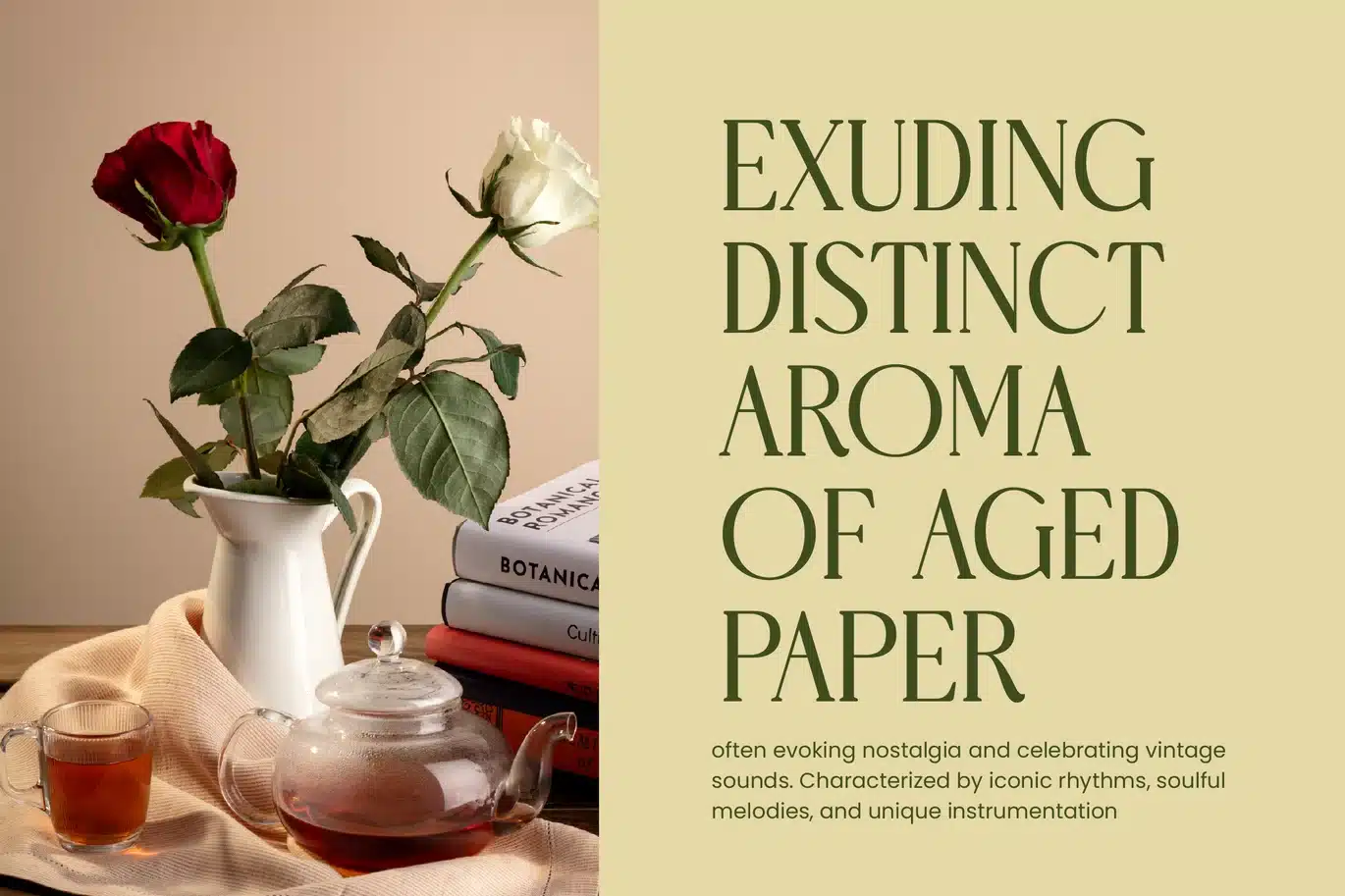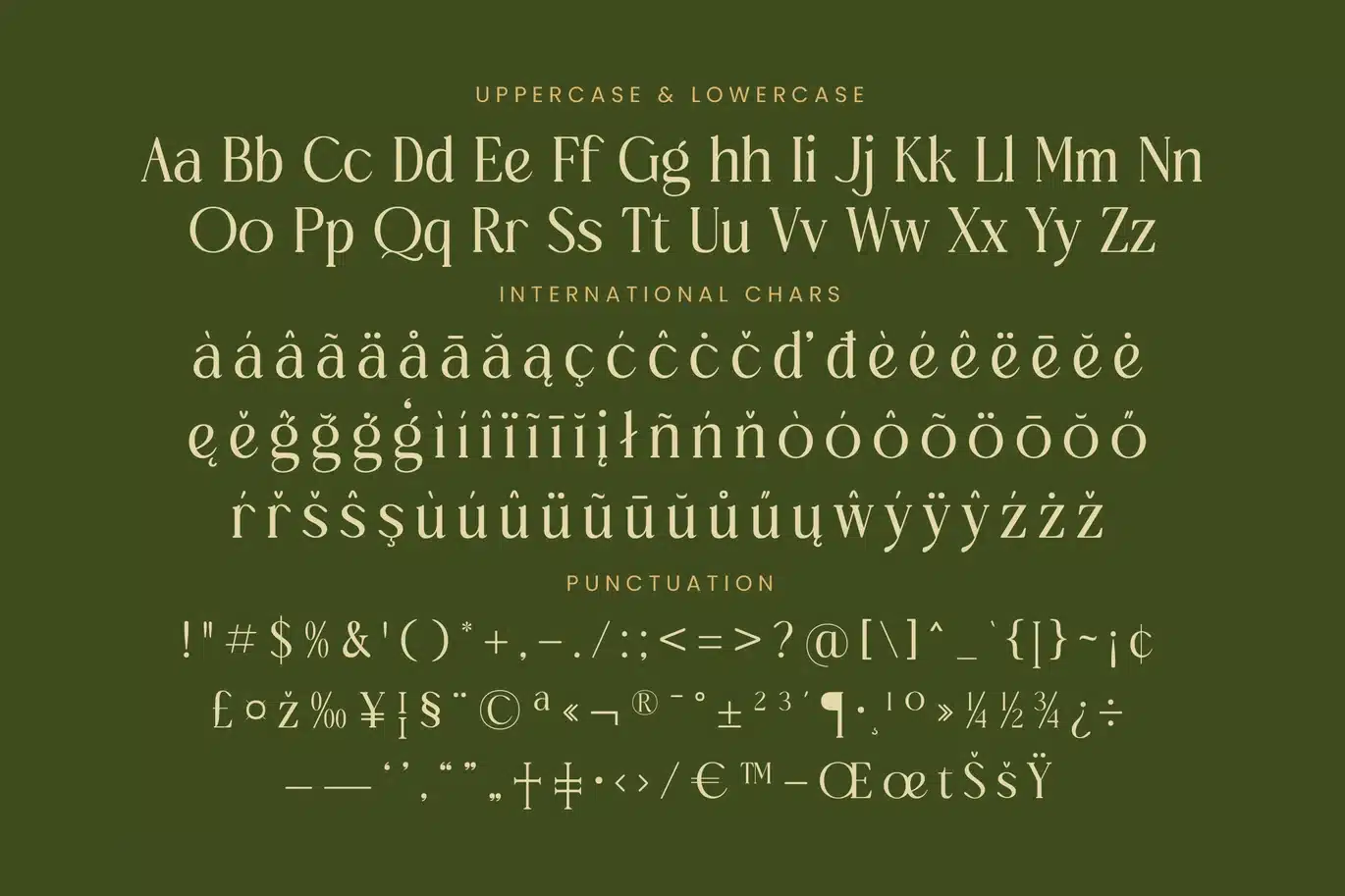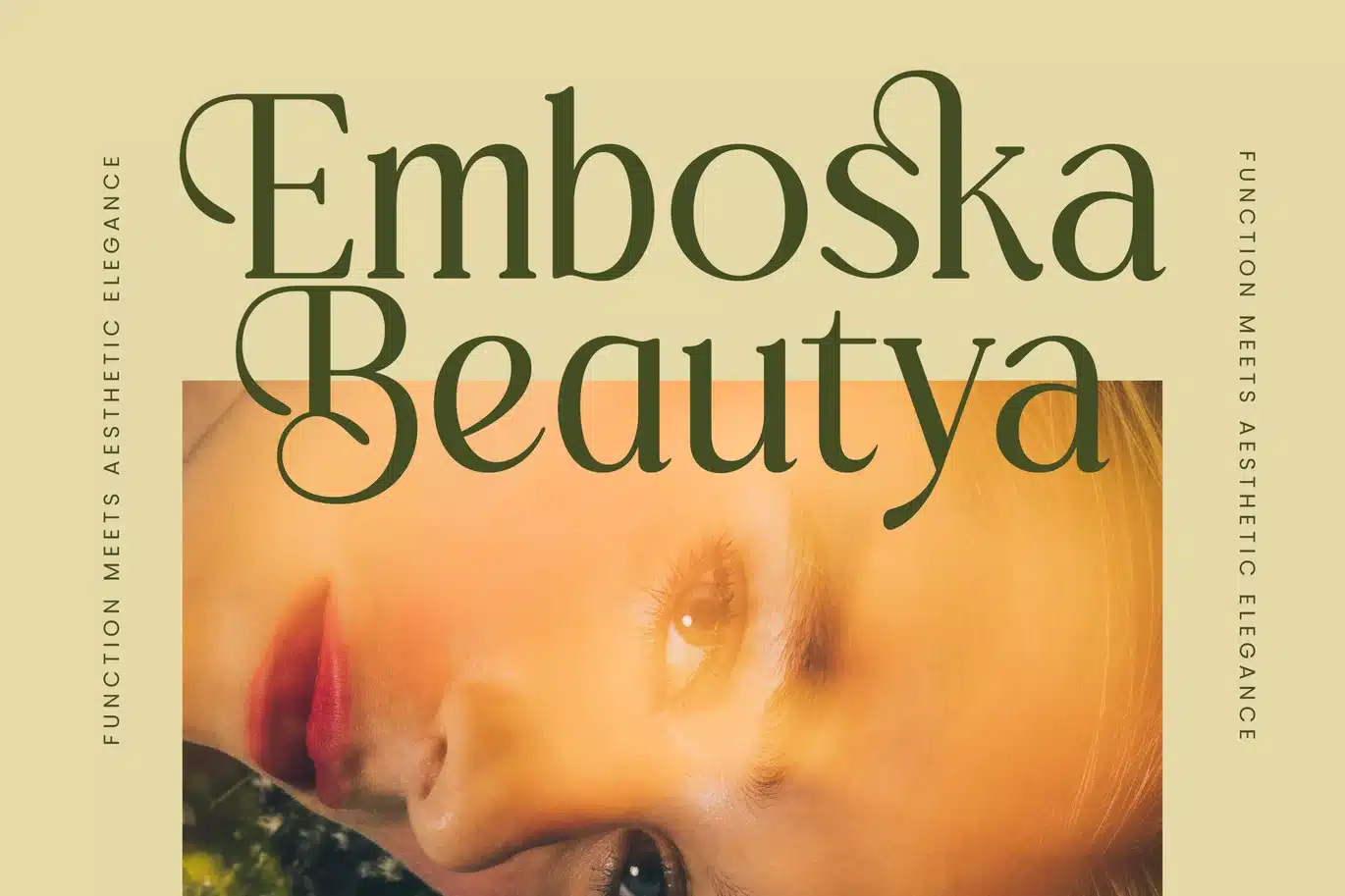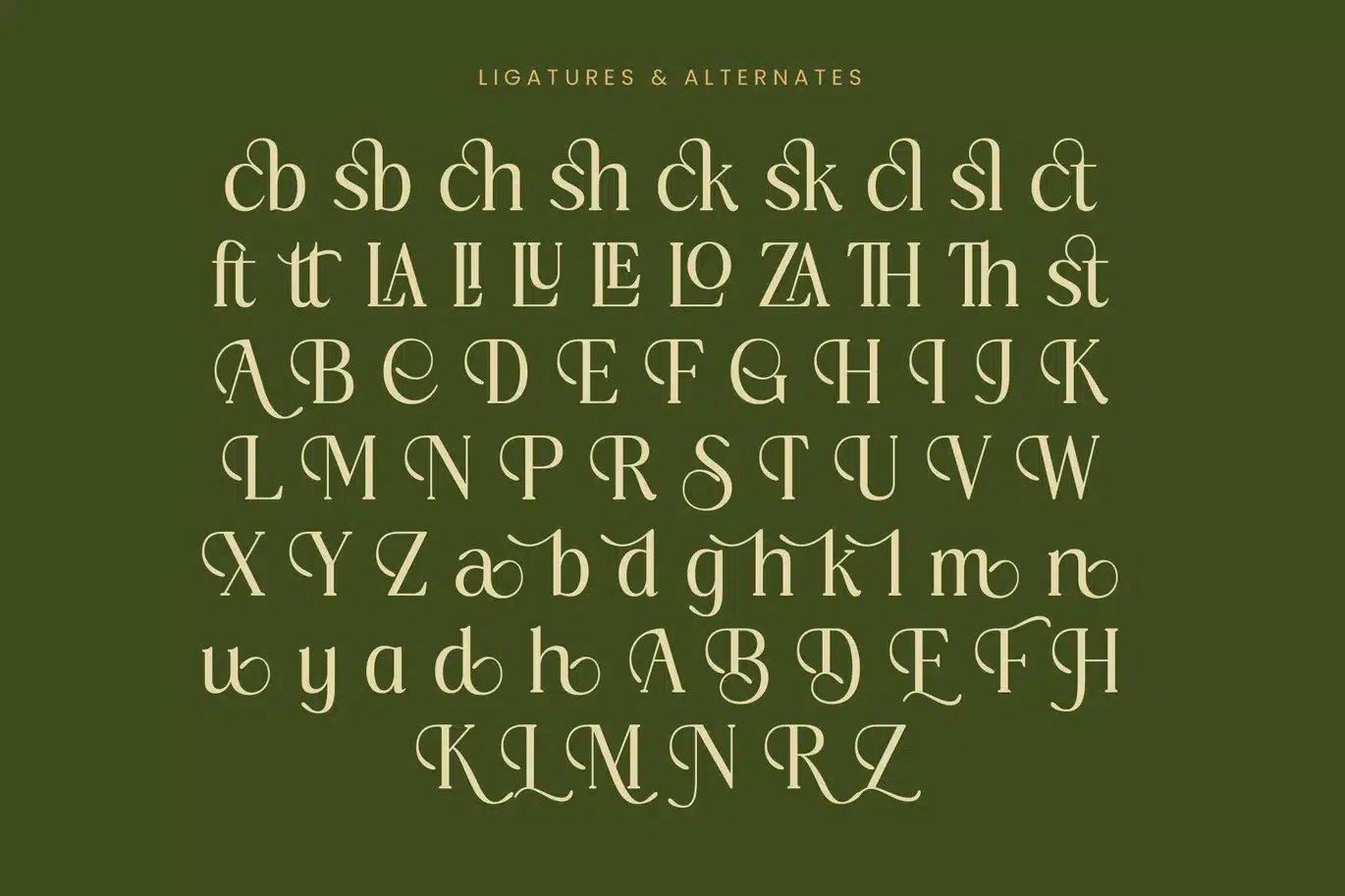
Royale Grosta – Vintage Serif Font
Royale Grosta is a vintage serif font that combines classic elegance with refined modern details. Featuring 24 ligatures and 50 alternates across 406 glyphs, it brings a timeless sophistication ideal for branding, editorial layouts, posters, and packaging. With its graceful curves and subtle contrast, Royale Grosta evokes a sense of luxury and heritage, perfect for projects that seek a majestic and artistic typographic style.